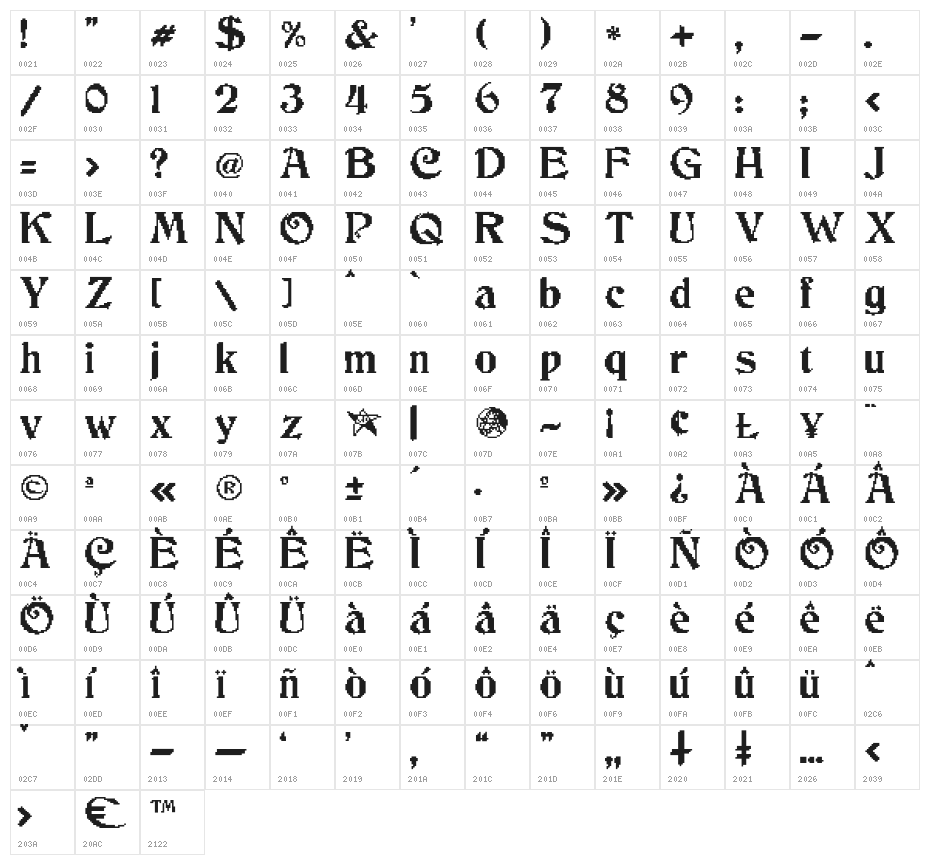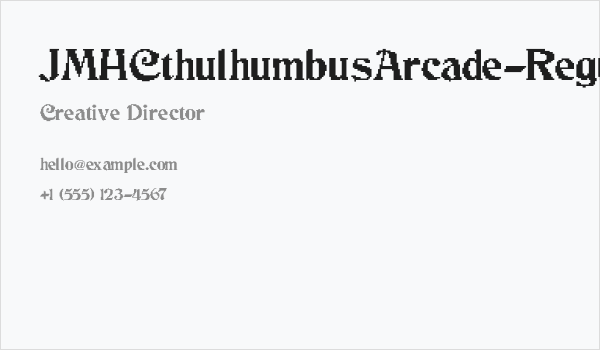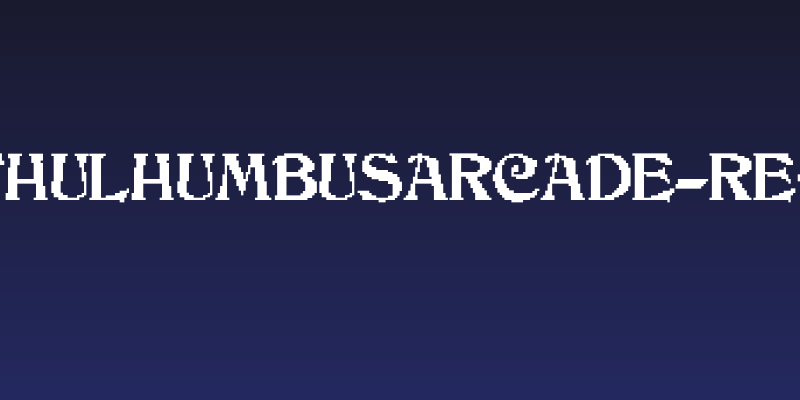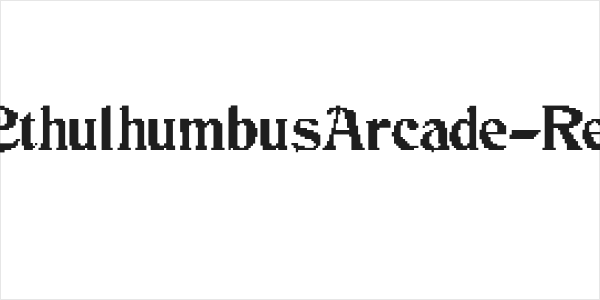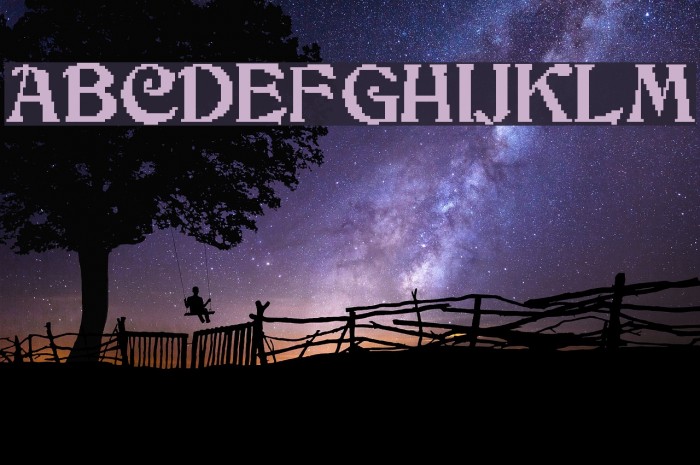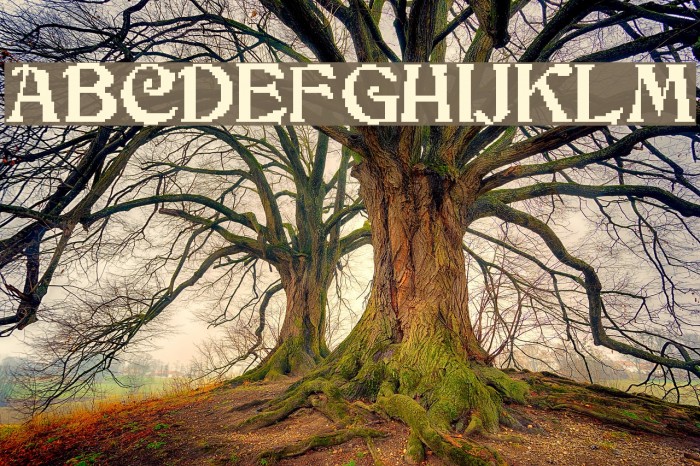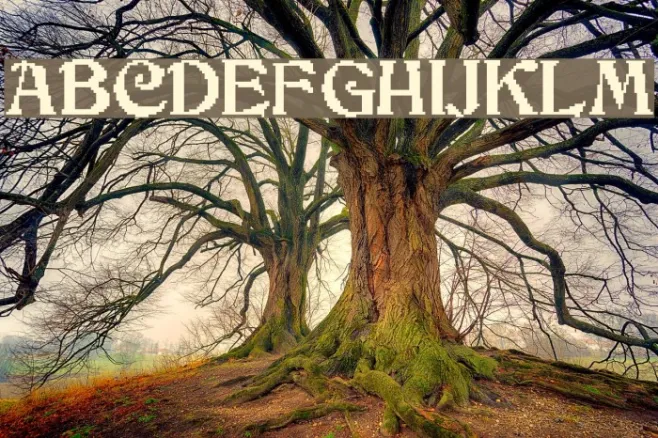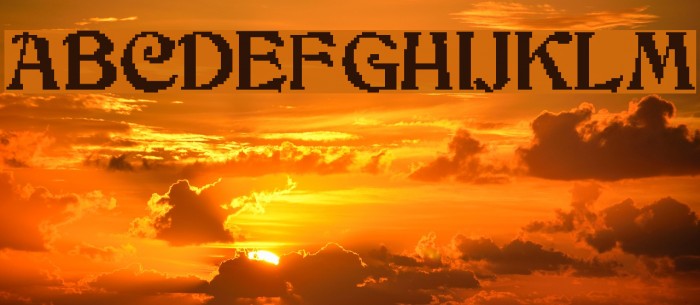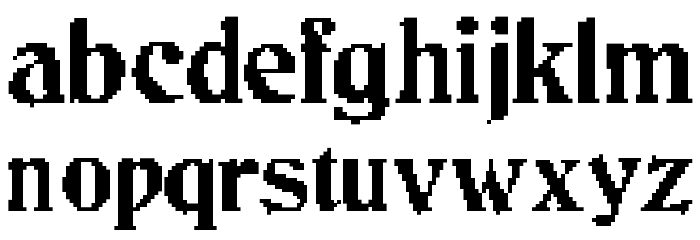
JMHCthulhumbusArcade-Regular Font
JMHCthulhumbusArcade-Regular Description
This font features a bold and striking design with a distinct gothic influence. The uppercase letters have a strong presence with sharp angles and unique serifs that give them a dramatic flair. The lowercase letters maintain a consistent style, with a slightly condensed form that enhances readability. The numerals are robust and align well with the overall aesthetic, providing a cohesive look. Special characters are designed to complement the alphabet, maintaining the same bold and intricate style. This font is perfect for projects that require a touch of vintage or fantasy elements.
| Proposed Projects | Ideal for video game titles, fantasy book covers, and themed event posters. |